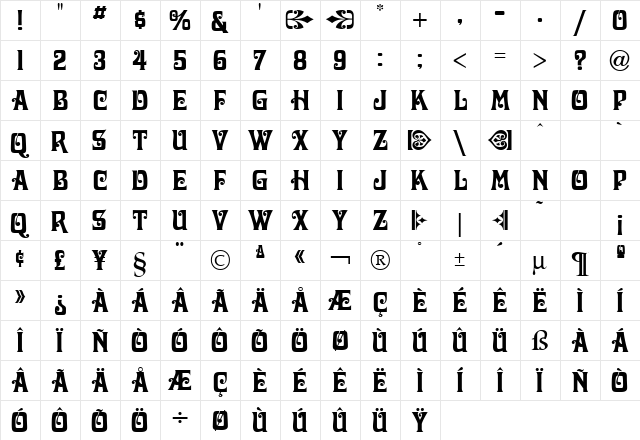
VictorianaDisplayCapsSSK Regular
Design Context for VictorianaDisplayCapsSSK Typeface
VictorianaDisplayCapsSSK brings ornamental detail and strong personality to headlines and identities, where visual impact matters more than quiet functionality.
Font Pairing: Pair with a clean neutral sans-serif for body copy to let VictorianaDisplayCapsSSK's character lead without overwhelming the composition.
Pro Tip: Treat VictorianaDisplayCapsSSK as the centrepiece of your typographic hierarchy. One strong heading set in a decorative face can carry an entire layout.